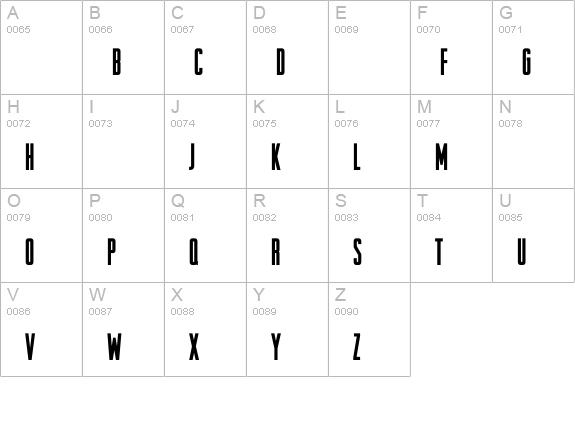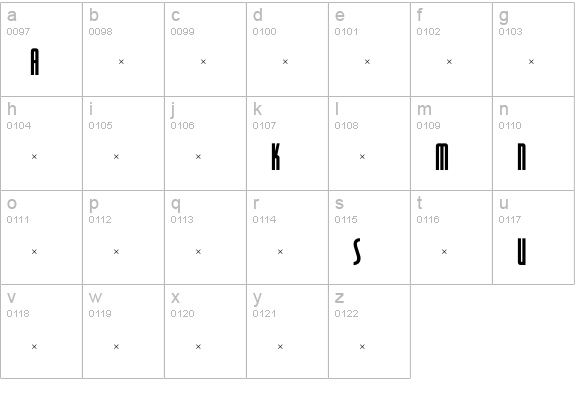
RRRaleighGothicCondExBld Font Details
RRRaleighGothicCondExBld font is a bold and striking typeface that exudes a sense of elegance and sophistication. With its condensed form and gothic-inspired design, this font is perfect for adding a touch of drama and flair to your projects. The sharp, angular lines and tall letterforms make it ideal for headlines, titles, and other attention-grabbing text. The RRRaleighGothicCondExBld font is available for free download at FontsMarket.com, making it easily accessible for designers and creatives looking to elevate their work with a unique and impactful typeface. Whether you're working on a poster, logo, website, or any other design project, this font is sure to make a bold statement and leave a lasting impression. Upgrade your typography game today with the RRRaleighGothicCondExBld font.